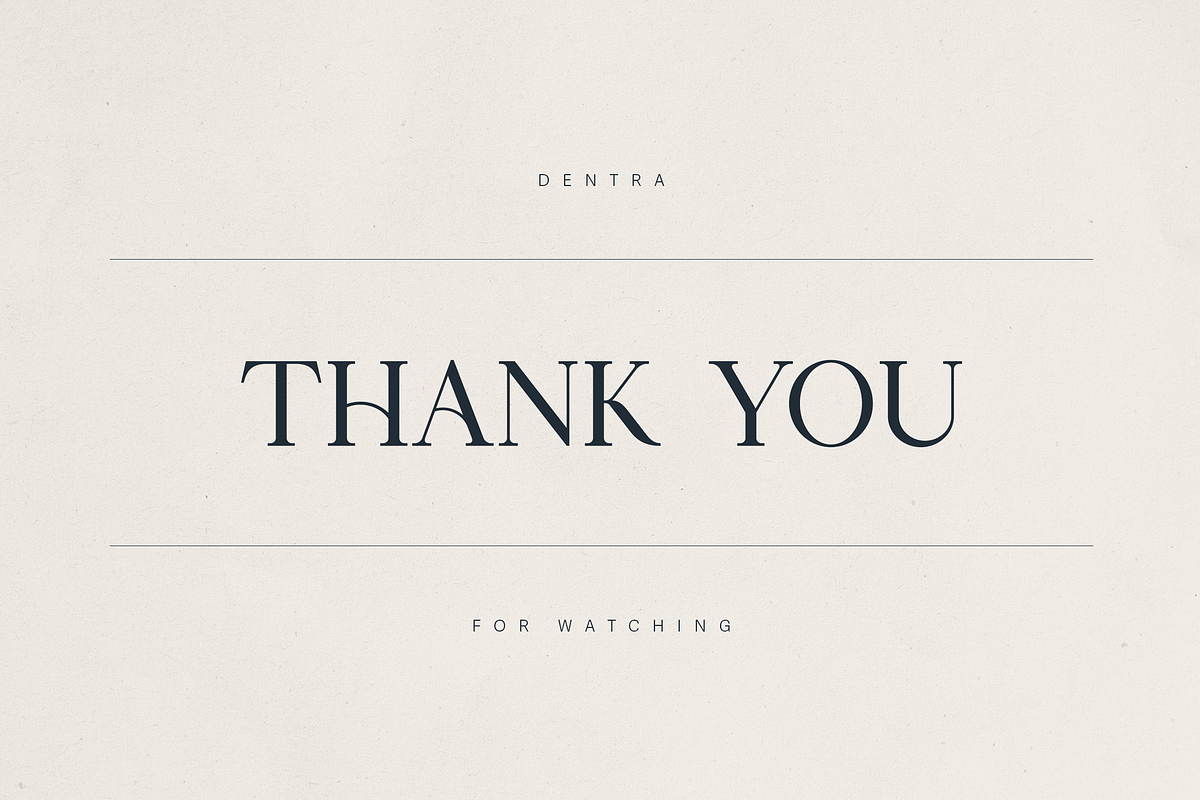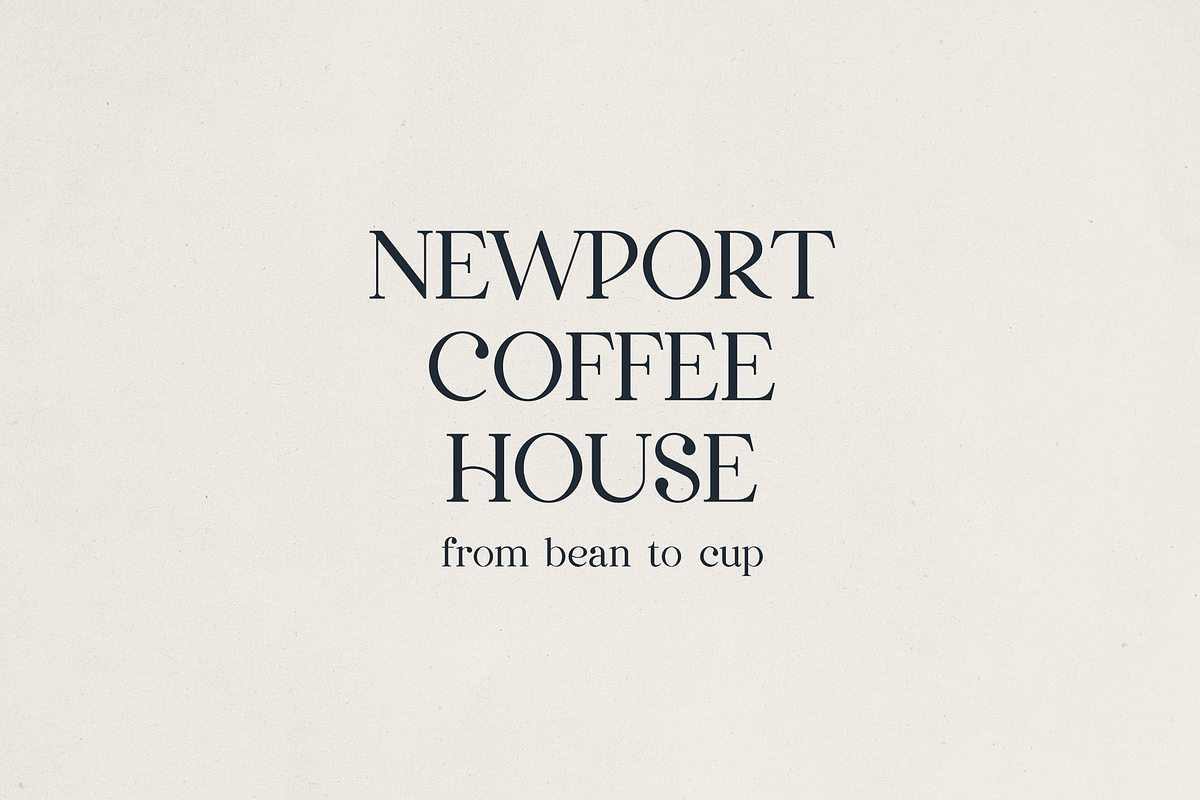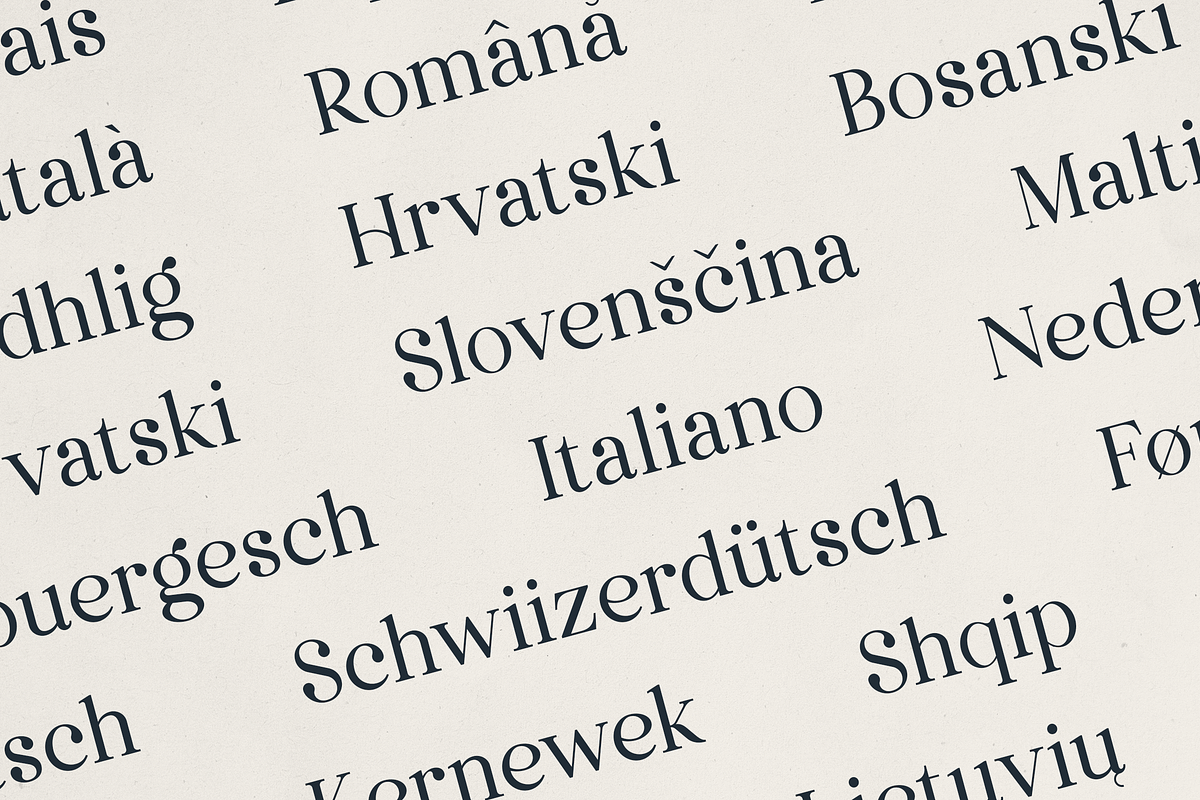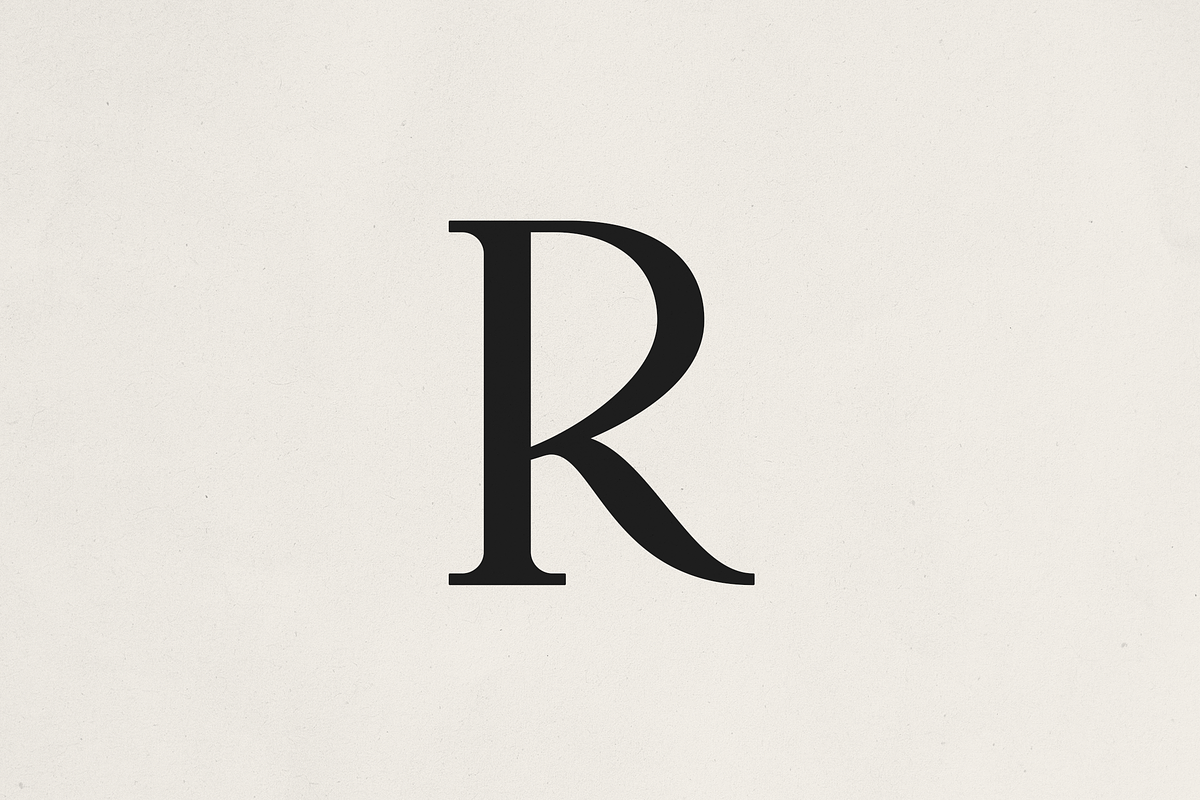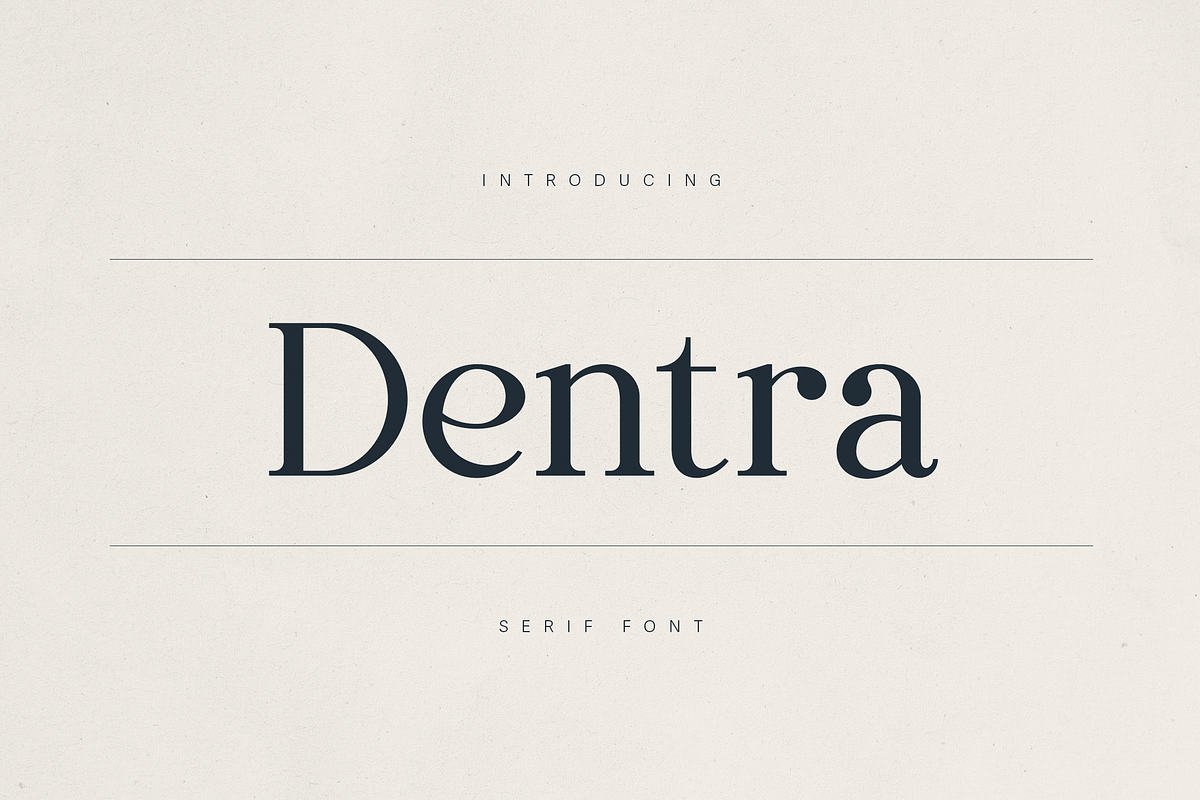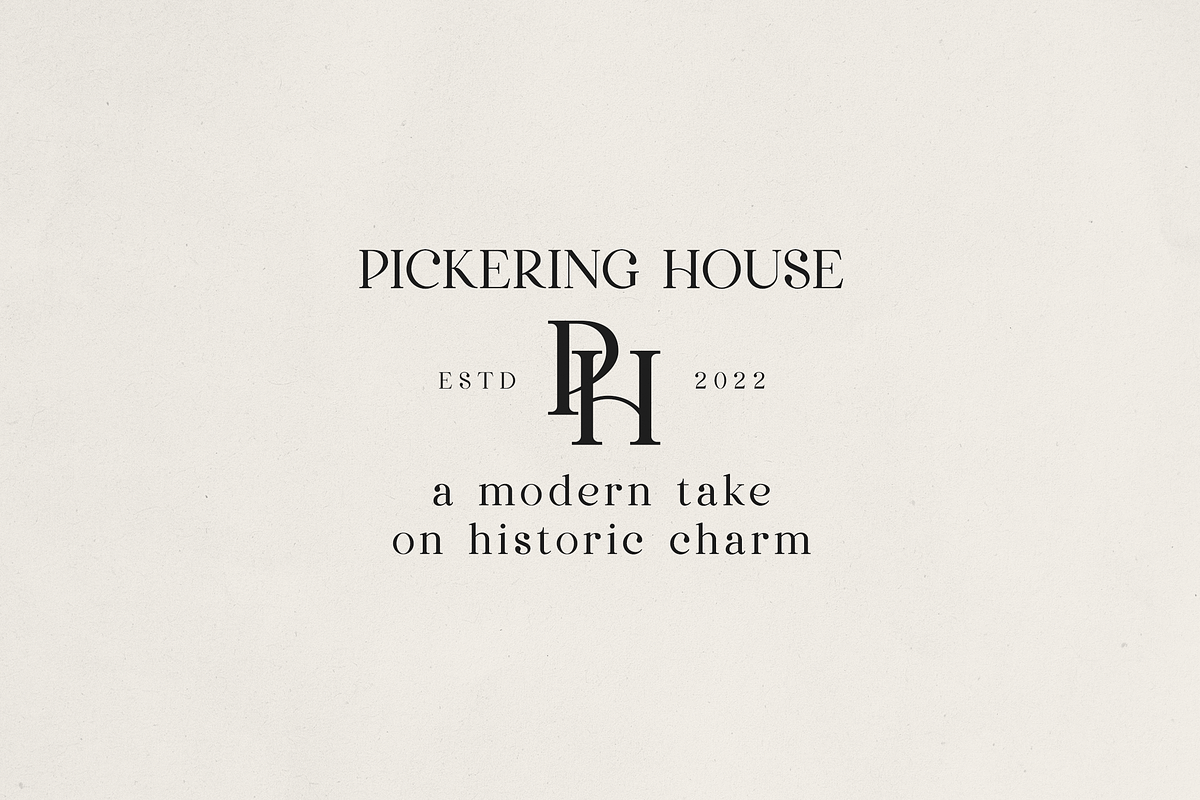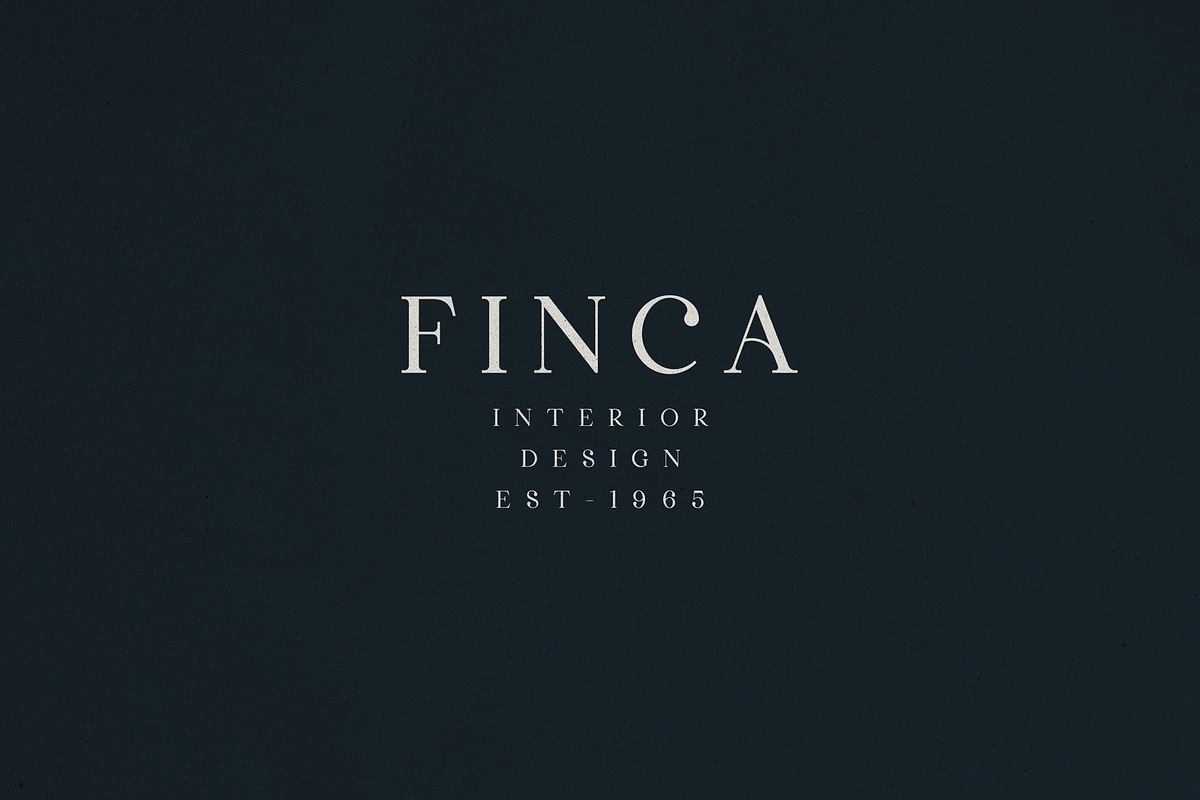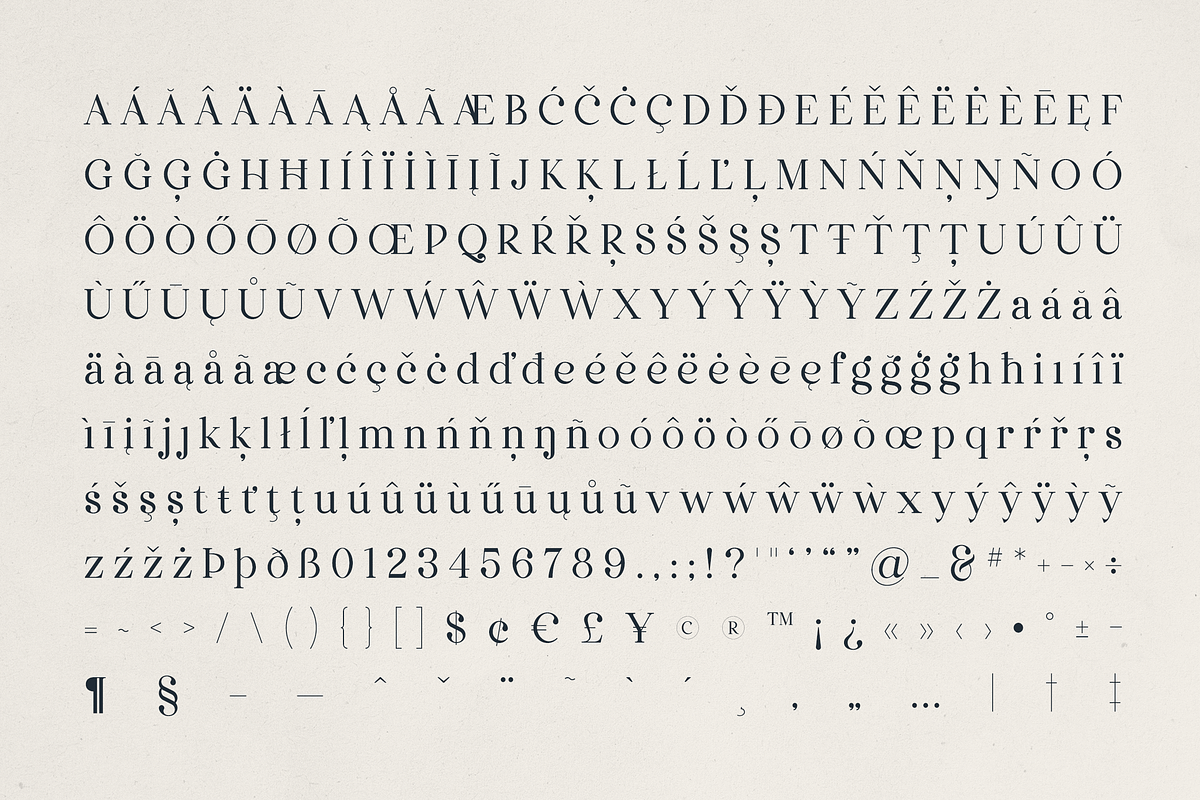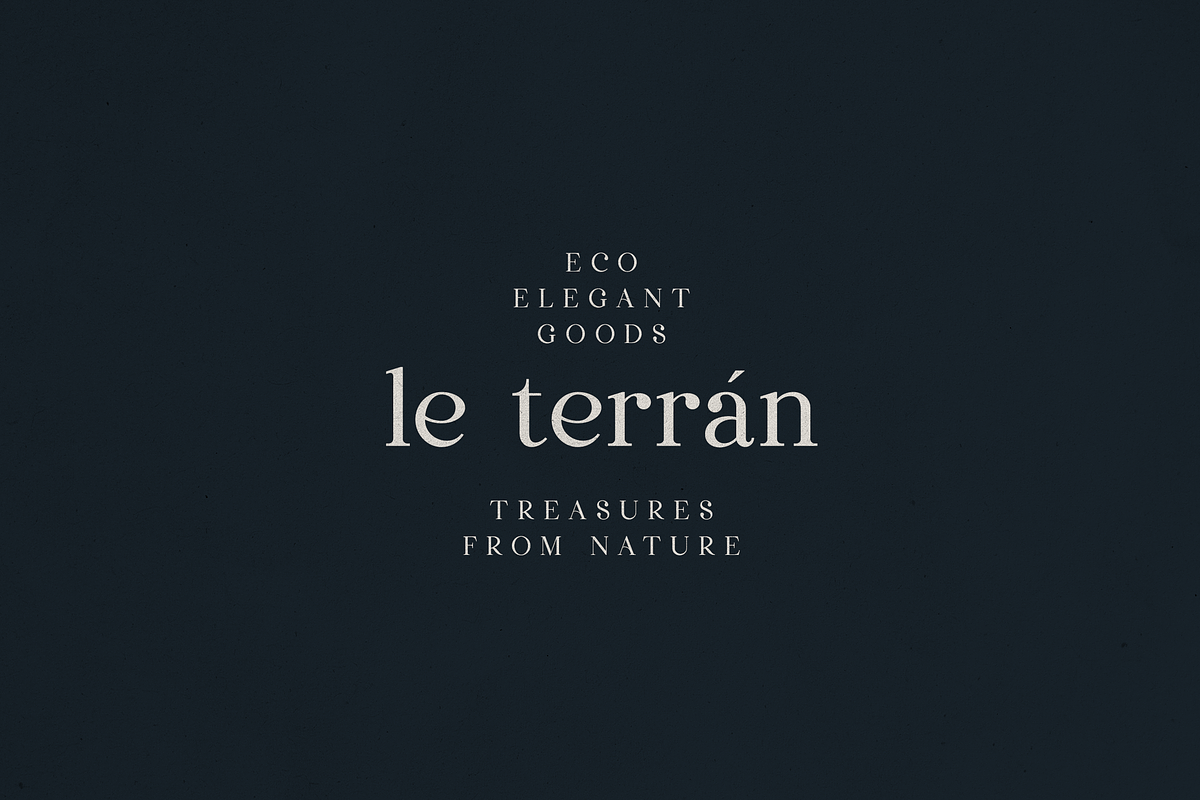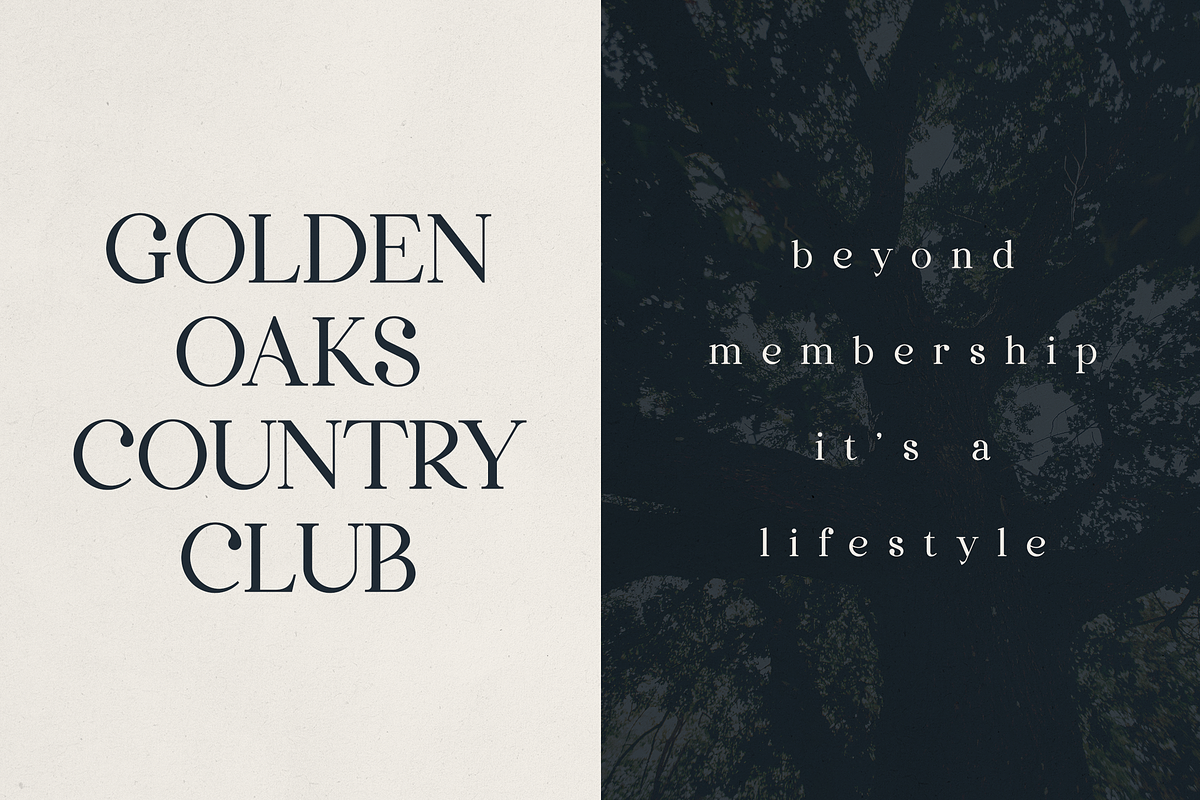
Dentra – Refined Serif with Soul
Dentra is a high-contrast serif typeface that exudes timeless elegance and understated sophistication. Designed with both tradition and modernity in mind, Dentra features graceful curves, sharp serifs, and beautifully balanced proportions — making it the perfect choice for brands and creatives who value classic beauty with a contemporary edge.
From editorial headlines and luxury branding to boutique packaging and elegant signage, Dentra effortlessly elevates every design it touches. Its refined letterforms offer just the right amount of personality — bold yet approachable, expressive yet disciplined.
✦ Features:
- Full multilingual support (Latin-based languages)
- Uppercase, lowercase, numerals, punctuation, and symbols
- Characters with custom flair
- Perfect for branding, editorial, lifestyle, fashion, and hospitality
Whether you're designing for a country club, eco boutique, or coffee house, Dentra delivers charm, clarity, and character in every letter.